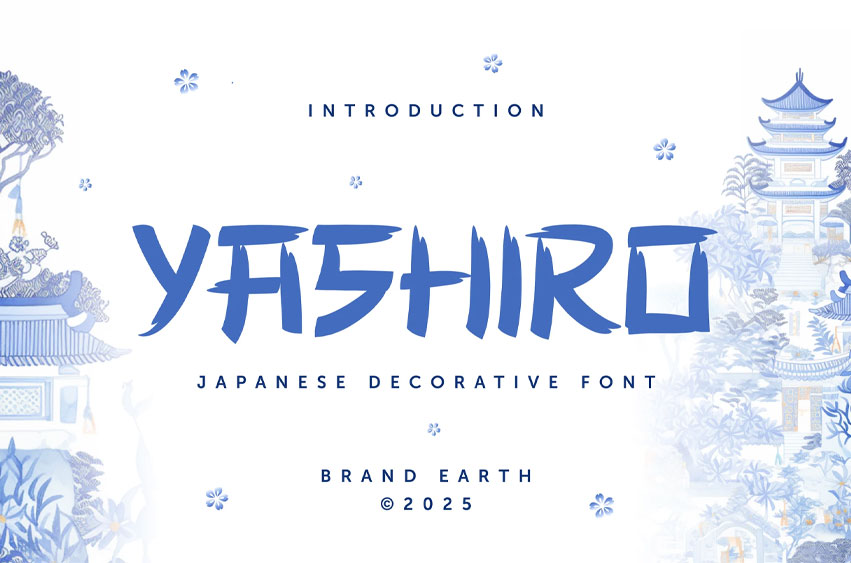
Yashiro Font is a bold decorative font inspired by traditional Japanese aesthetics and ancient brushstroke art. Its unique style captures the elegance of classic signage and temple engravings, blending heritage with modern typographic structure.
This typeface is designed for audiences who appreciate the visual richness of East-Asian culture—perfect for Japanese-themed restaurants, event posters, culinary packaging, heritage travel brochures, or artistic publications. Structurally, Yashiro is a stylized sans-serif with geometric influences, sharpened terminals, and a decorative edge. It brings ornamental beauty without sacrificing legibility.
Best use cases include branding for Japanese cuisine, editorial covers, packaging design, cultural promotions, and seasonal festival campaigns. It thrives in layouts where cultural authenticity and typographic strength must align. Yashiro is more than a decorative font; it’s a cultural bridge between traditional elegance and modern design, crafted to captivate viewers and communicate depth at a glance.
Whether you’re designing for a Japanese restaurant, a sushi bar, a travel campaign, or a cultural product, this font delivers instant context and thematic connection, without the need for extra imagery or explanation.
Yashiro Japanese Decorative Suitable for: Japanese restaurant branding, sushi packaging, travel posters, tourism campaigns, editorial layouts, cultural event promotions, festival banners, menu design, museum brochures, souvenir items, food truck signage, exhibition flyers, culinary blog graphics, East-Asian product packaging, and Japanese-themed merchandise.